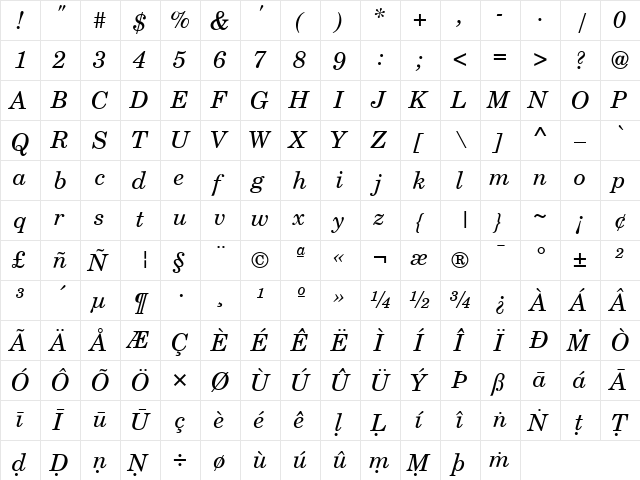
NCS CSXpali Italic
| Foundry | by URW |
Design Context for NCS CSXpali Typeface
NCS CSXpali offers clean, dependable letterforms without strong stylistic allegiance, making it a practical choice for designers who need flexibility. The slanted form adds forward momentum and visual energy.